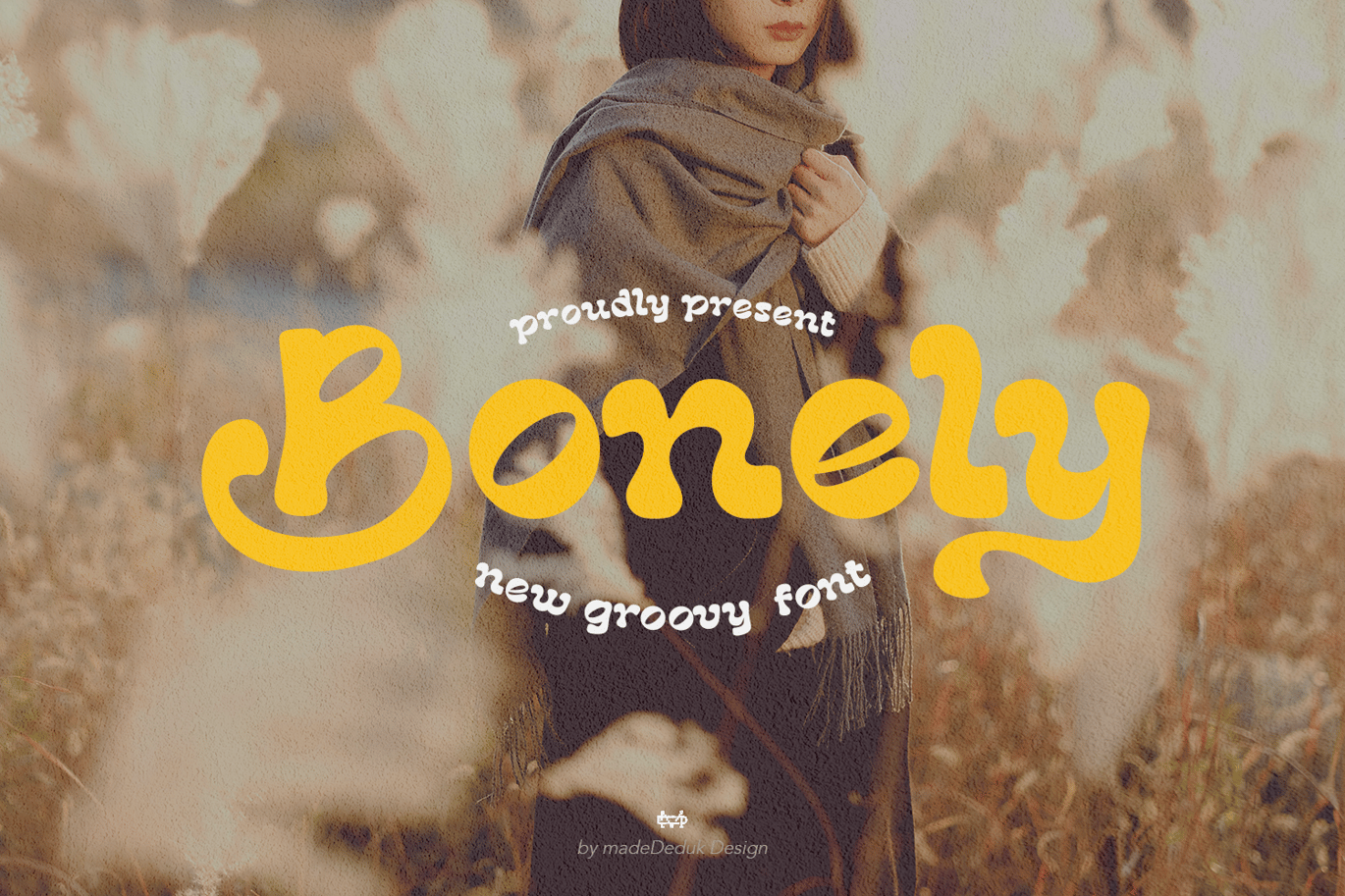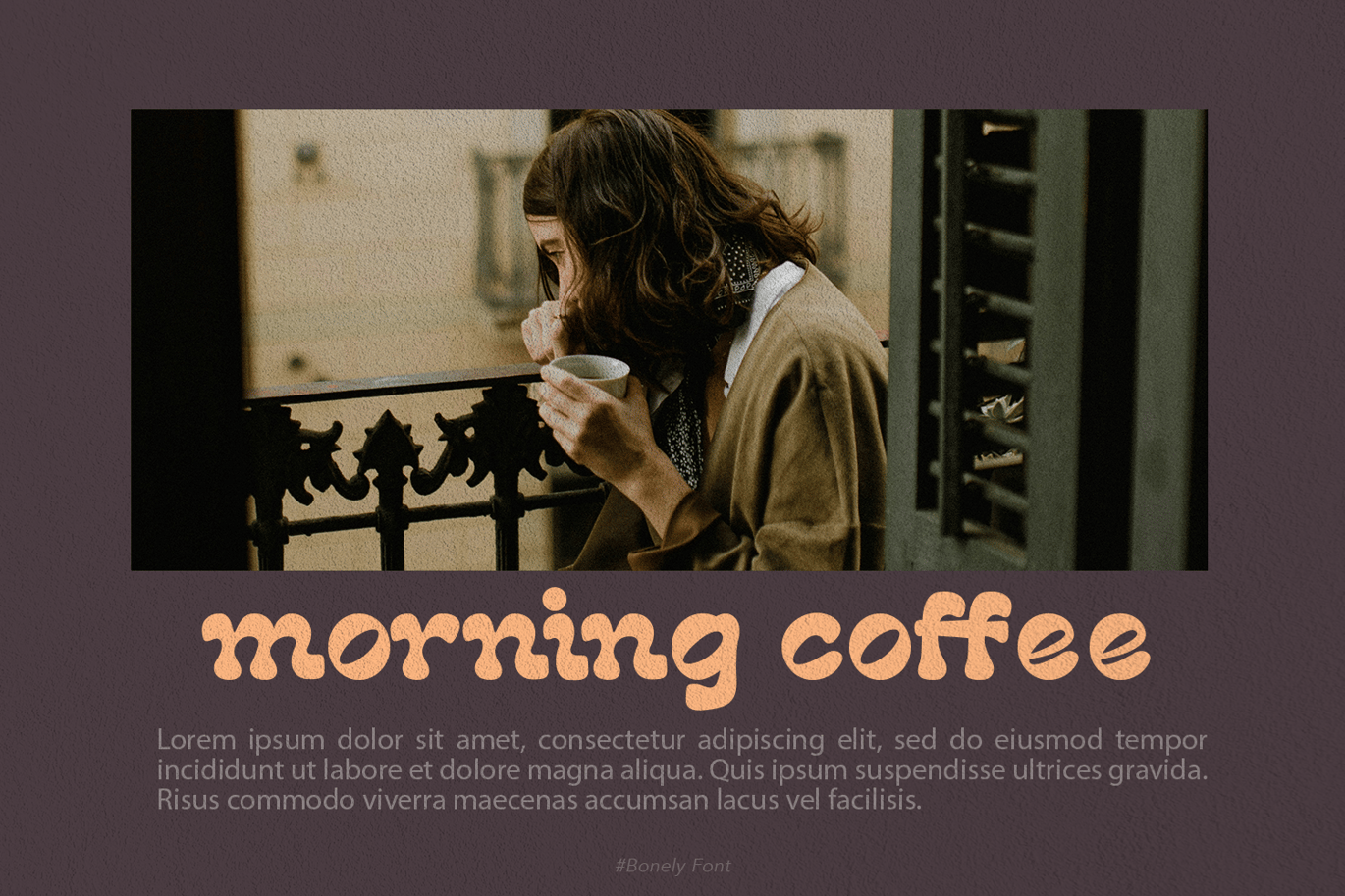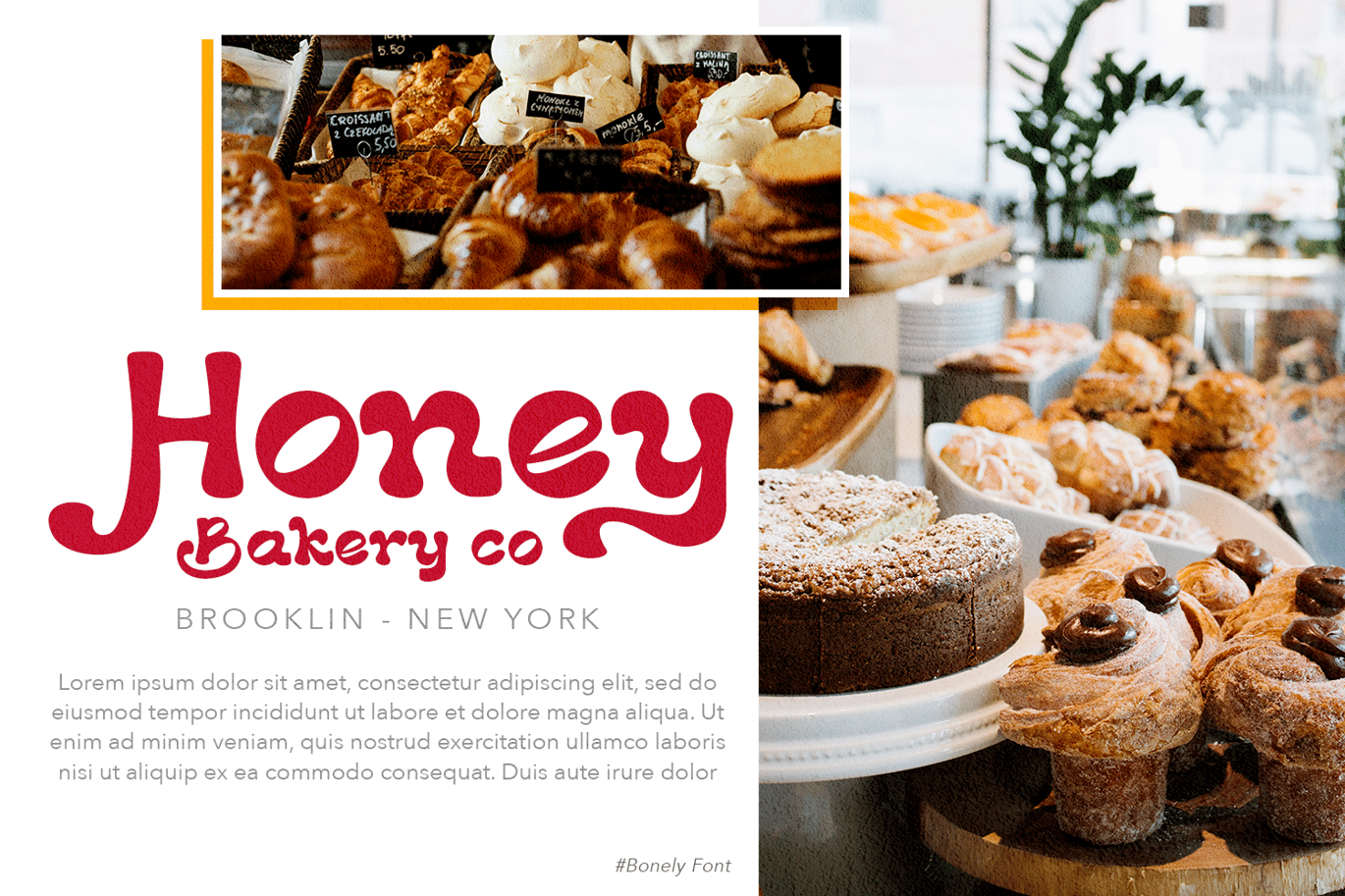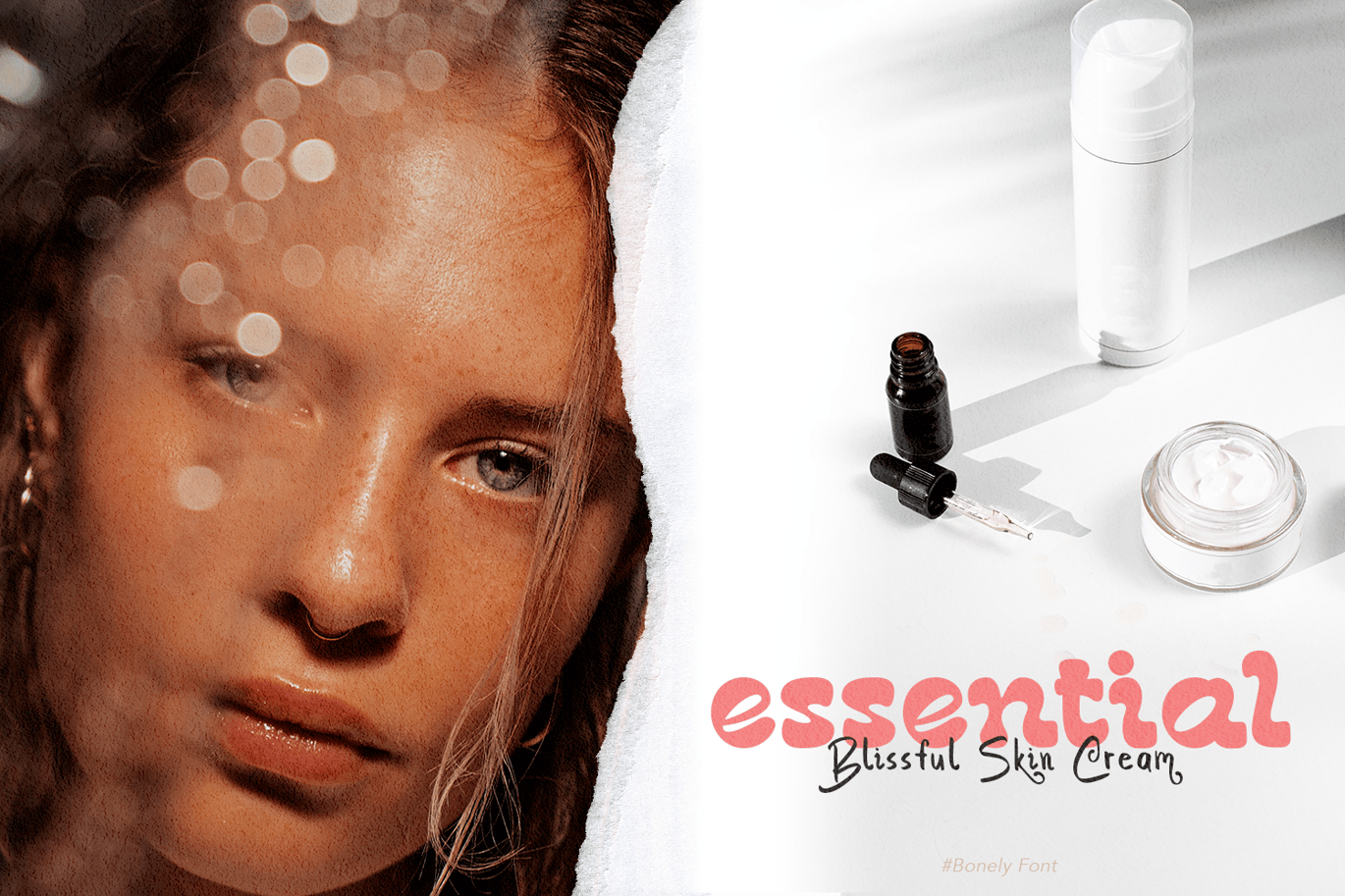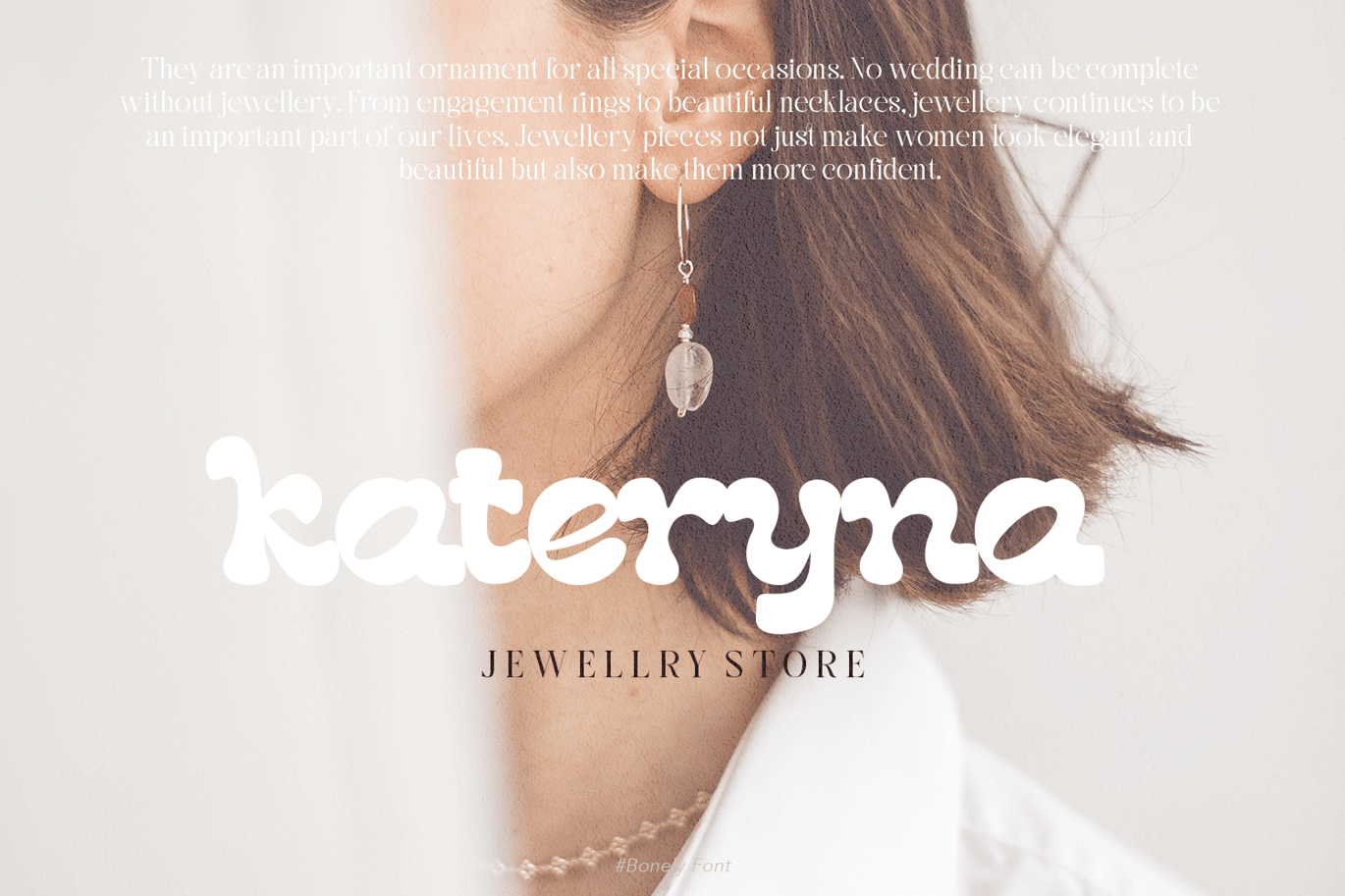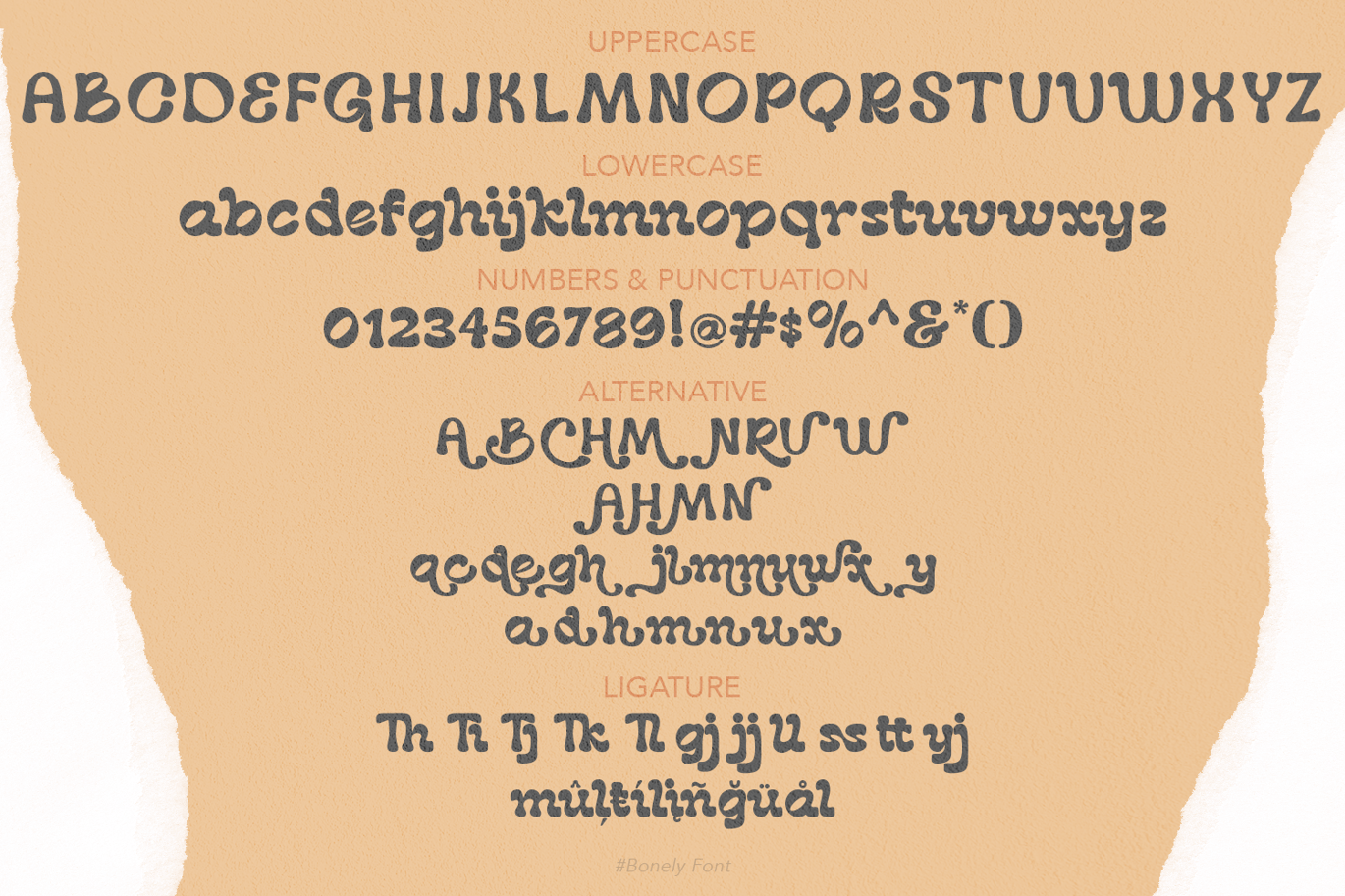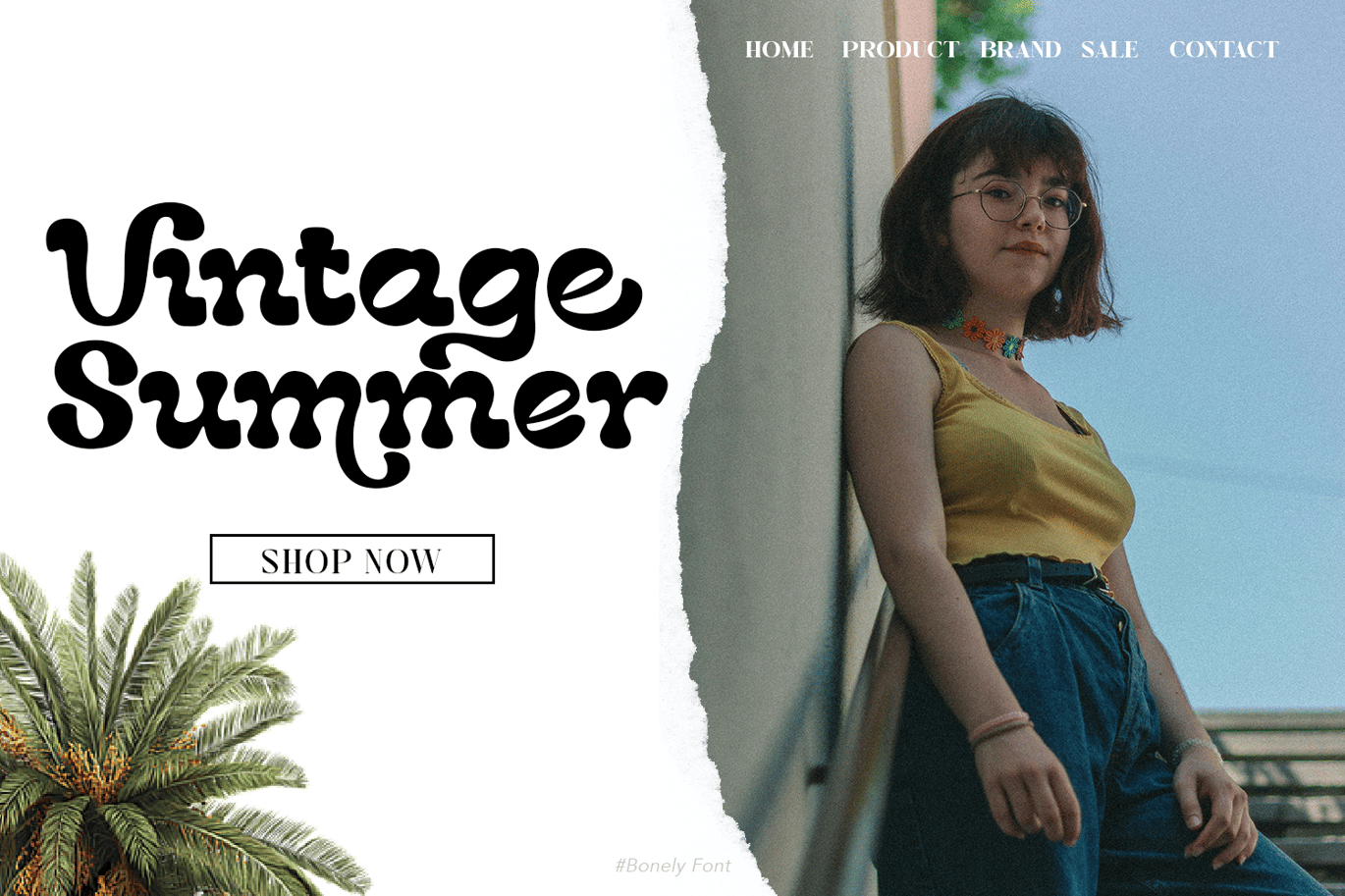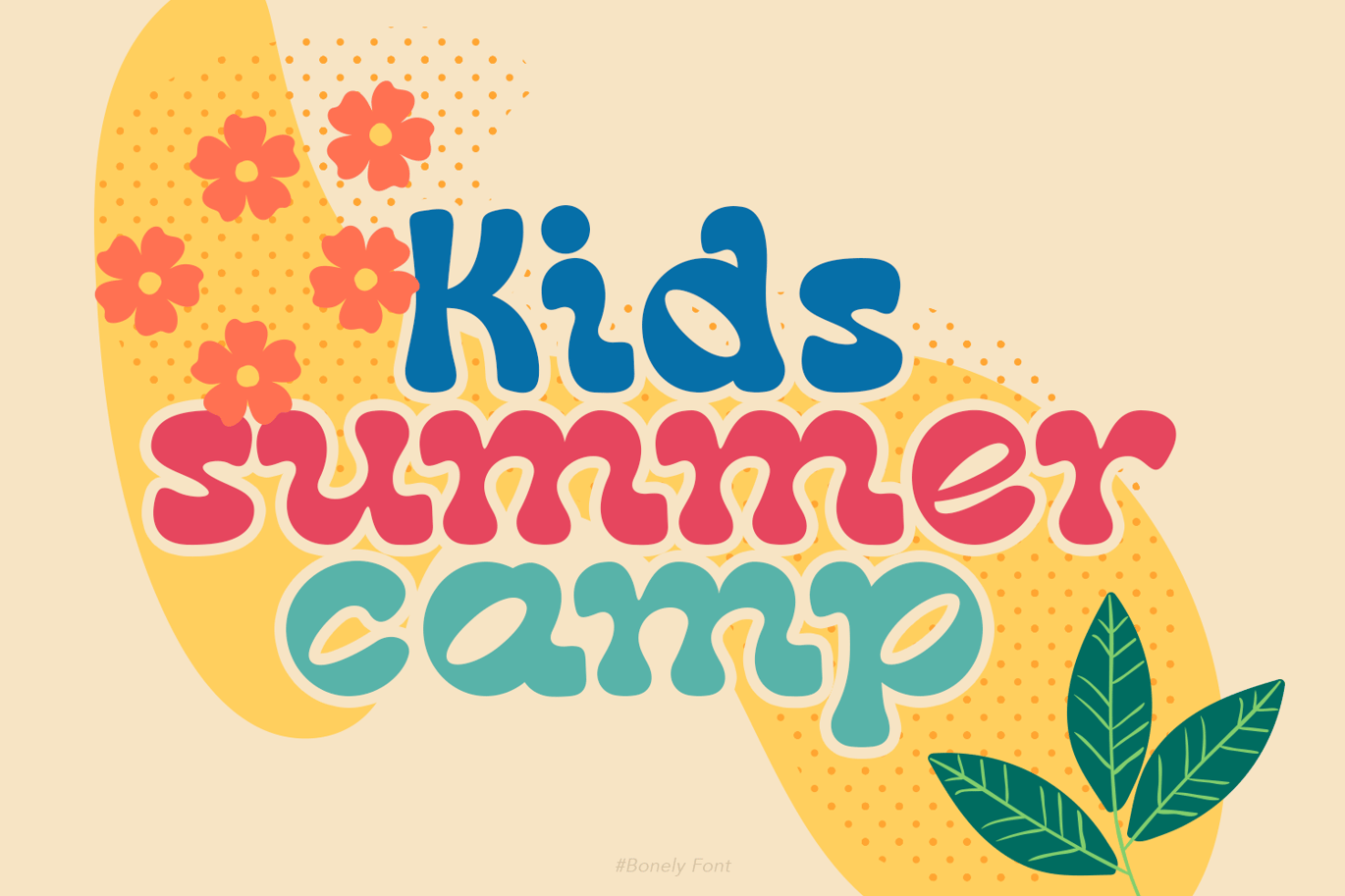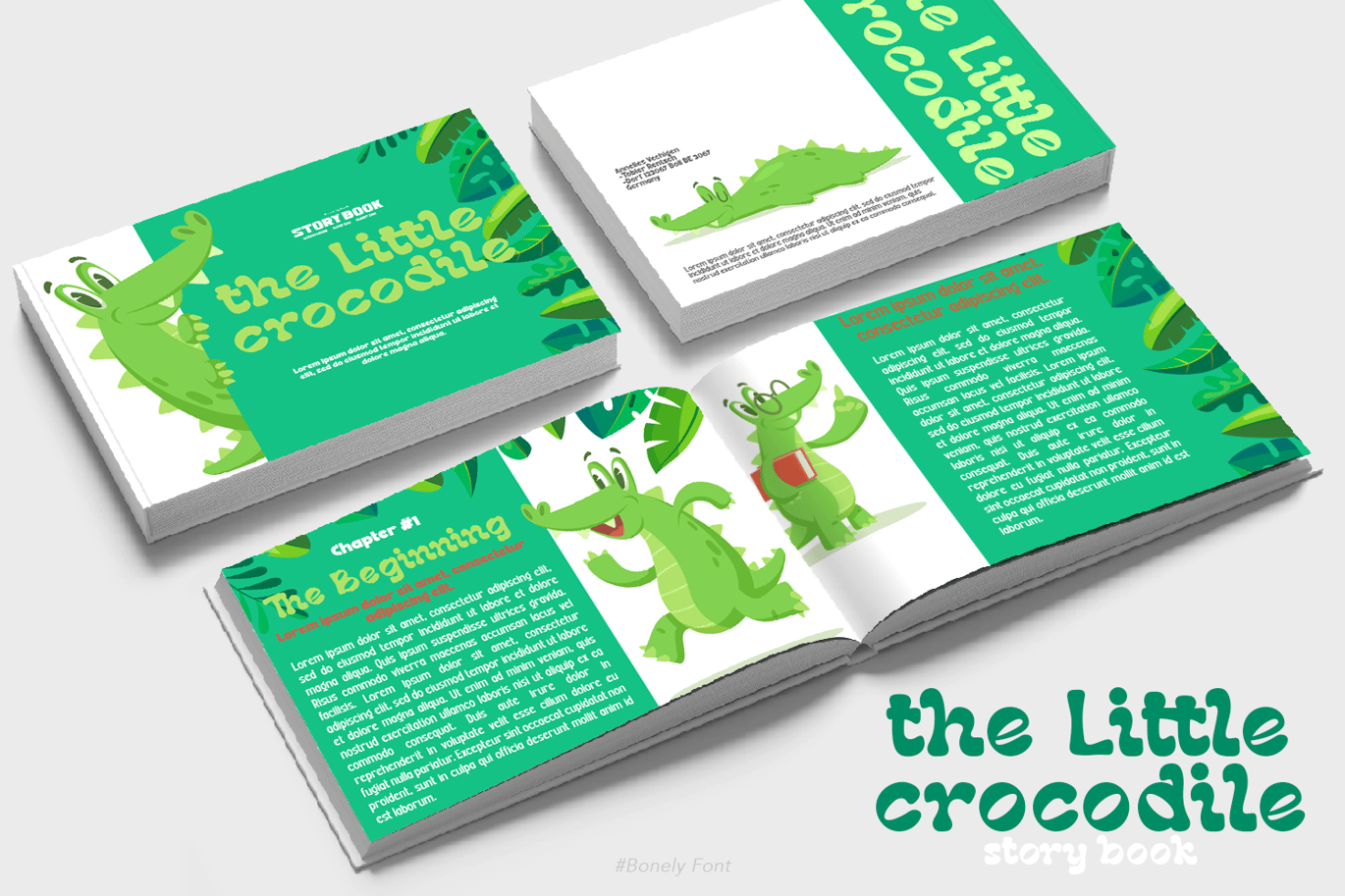
Bonely Groovy Font
Bonely is a beautiful script font. Comes with retro style with much alternative and ligature. This font perfect for poster design, book covers, merchandise, fashion brands, advertising, magazines, album covers, wedding invitation and more.
Feature
- Number & Symbol
- International Glyphs
- Alternative